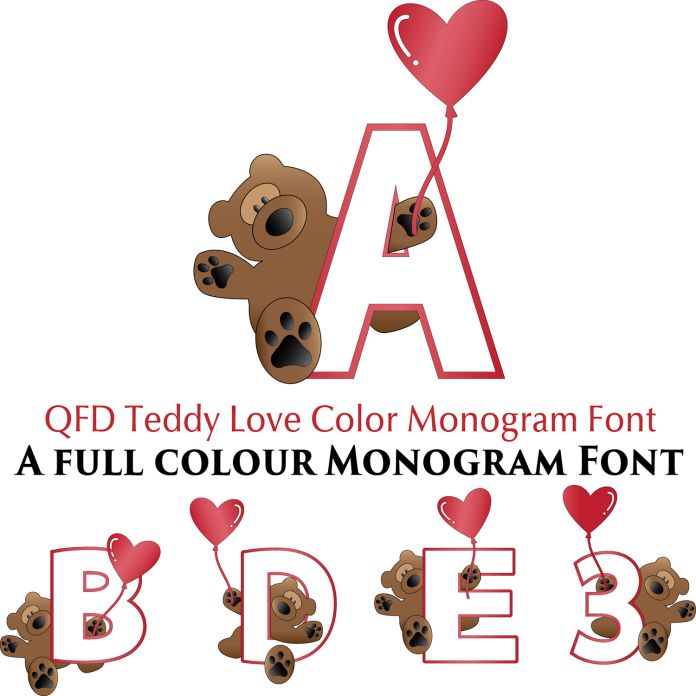
This font isn’t just for Valentine’s Day – it’s perfect to show your love anytime! The teddies are bouncing everywhere. Use it on cards and tags and placecards. Make stickers! You can just print and cut one and resize as needed! Please note this font is compatible in Silhouette Studio and some other softwares, but will show as a filled-in solid when used with incompatible programs. Make sure you click the Instructions button after purchase. If you have any questions, please feel free to contact me through my website!